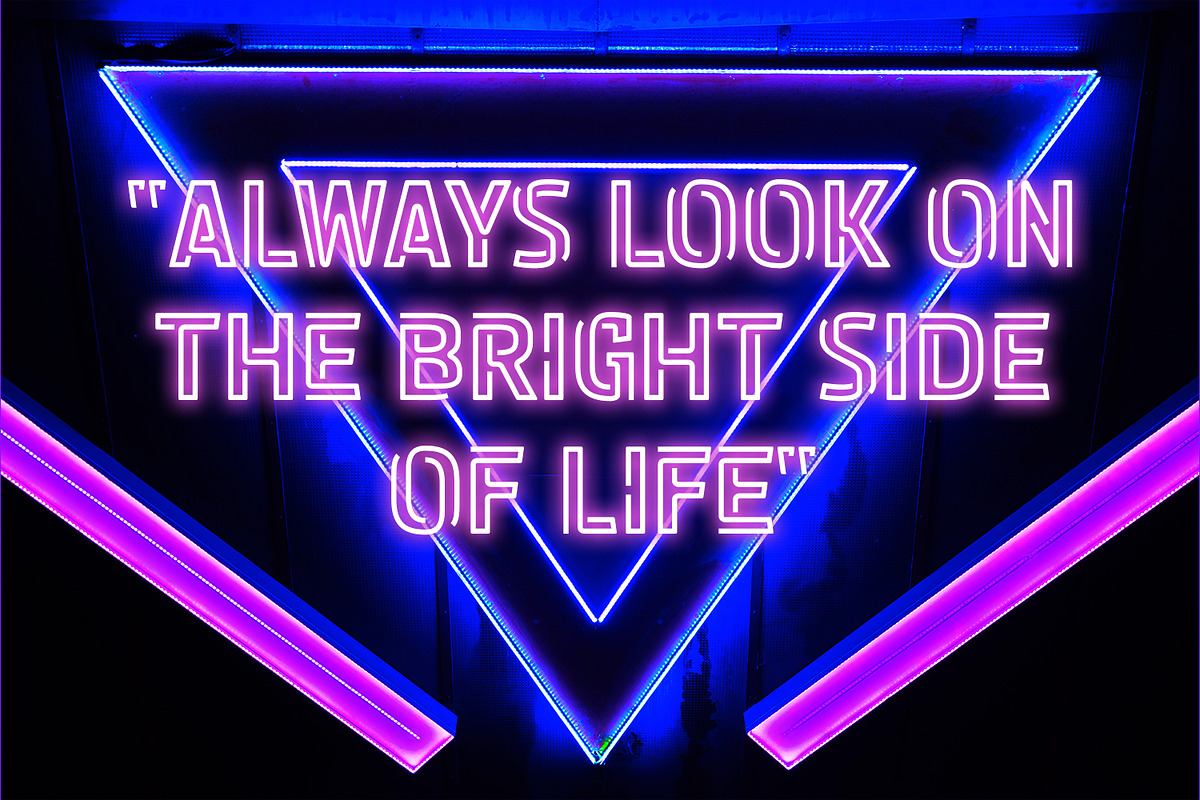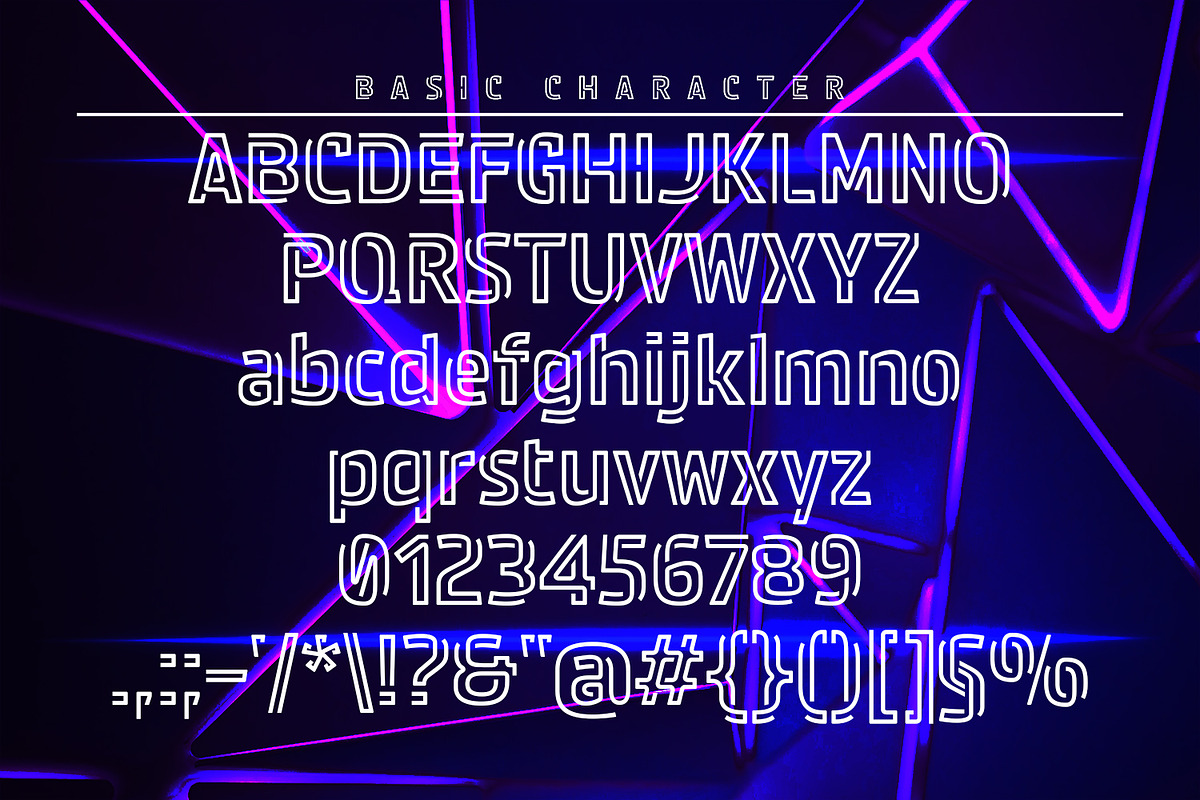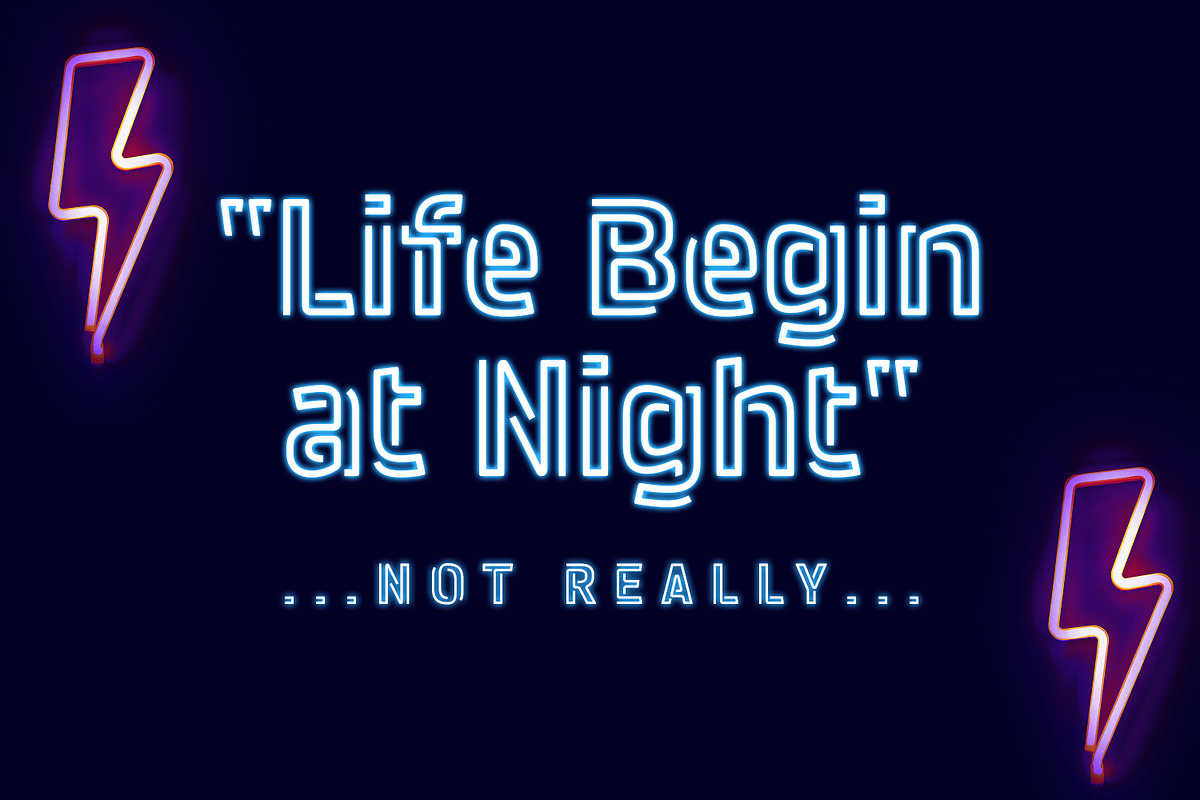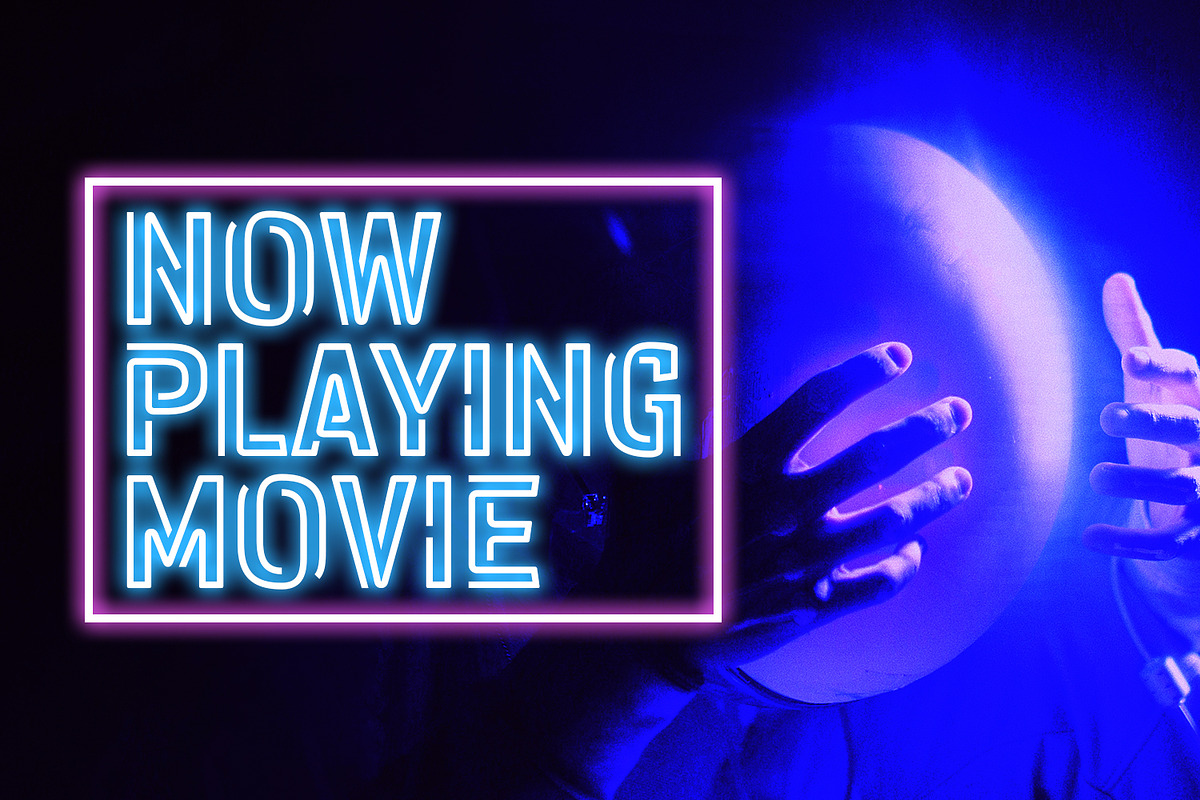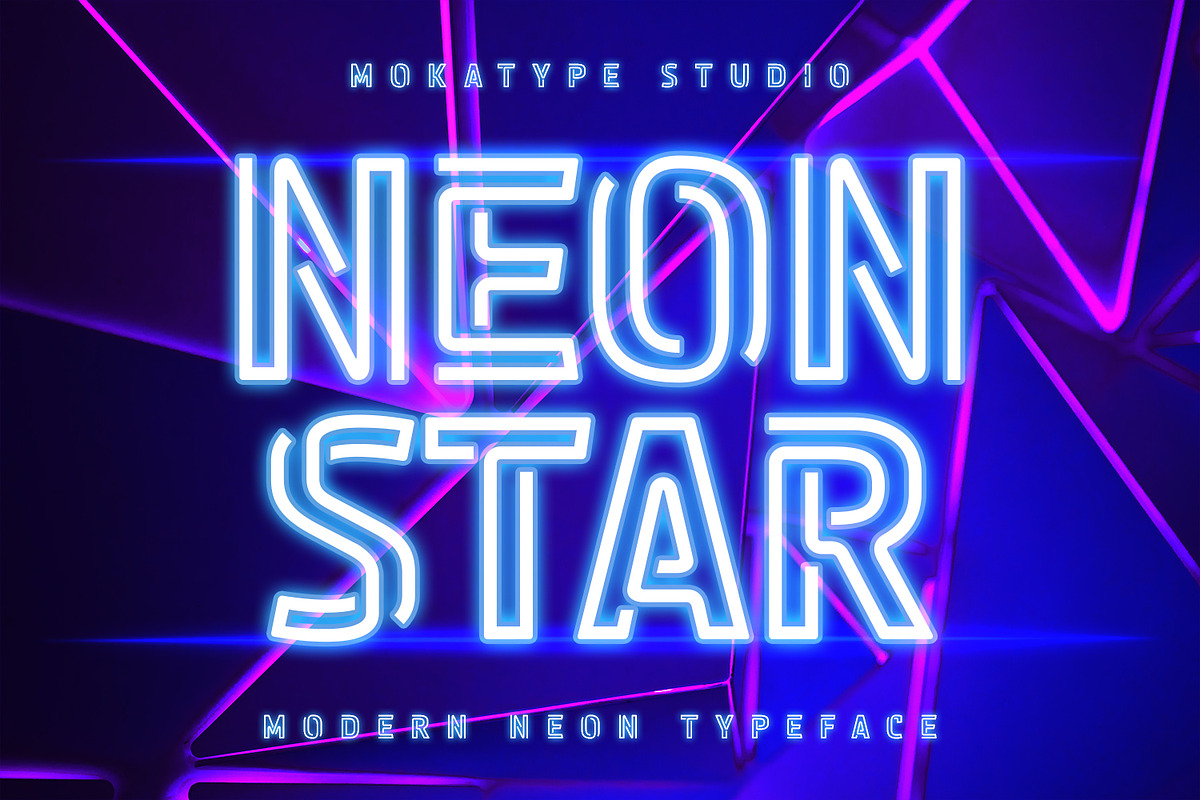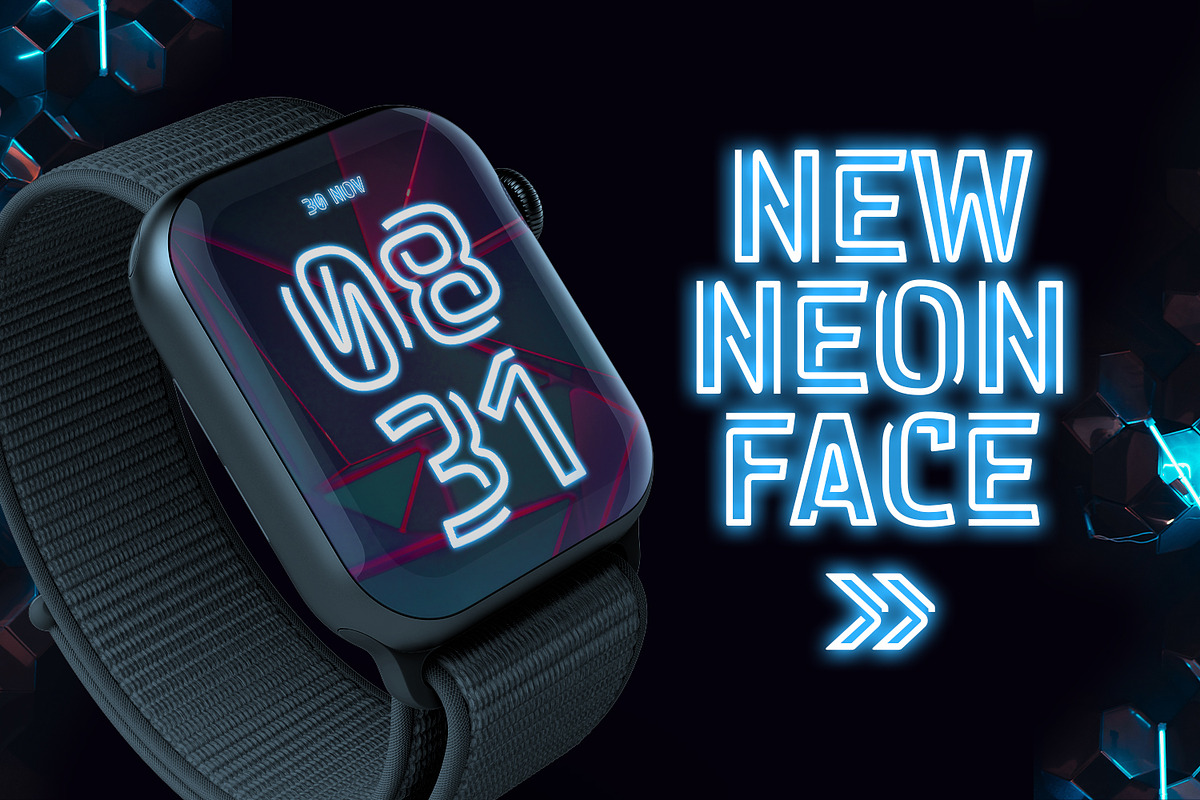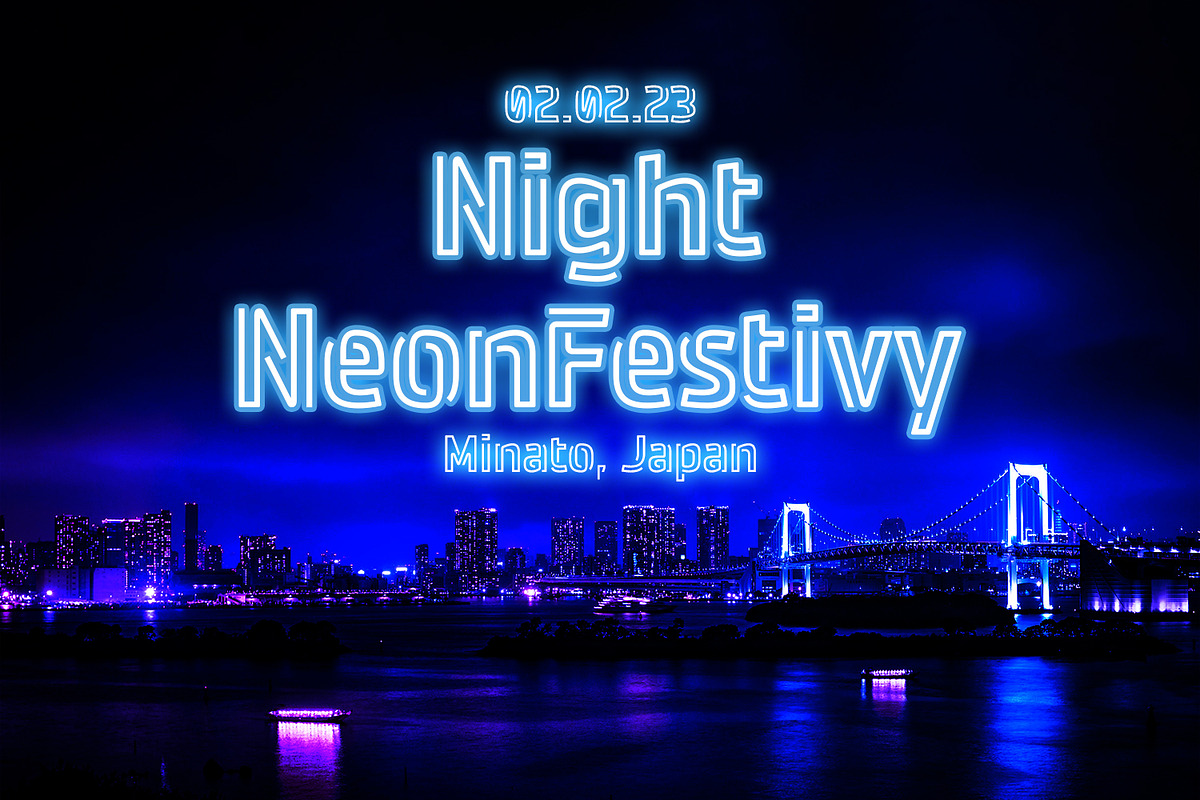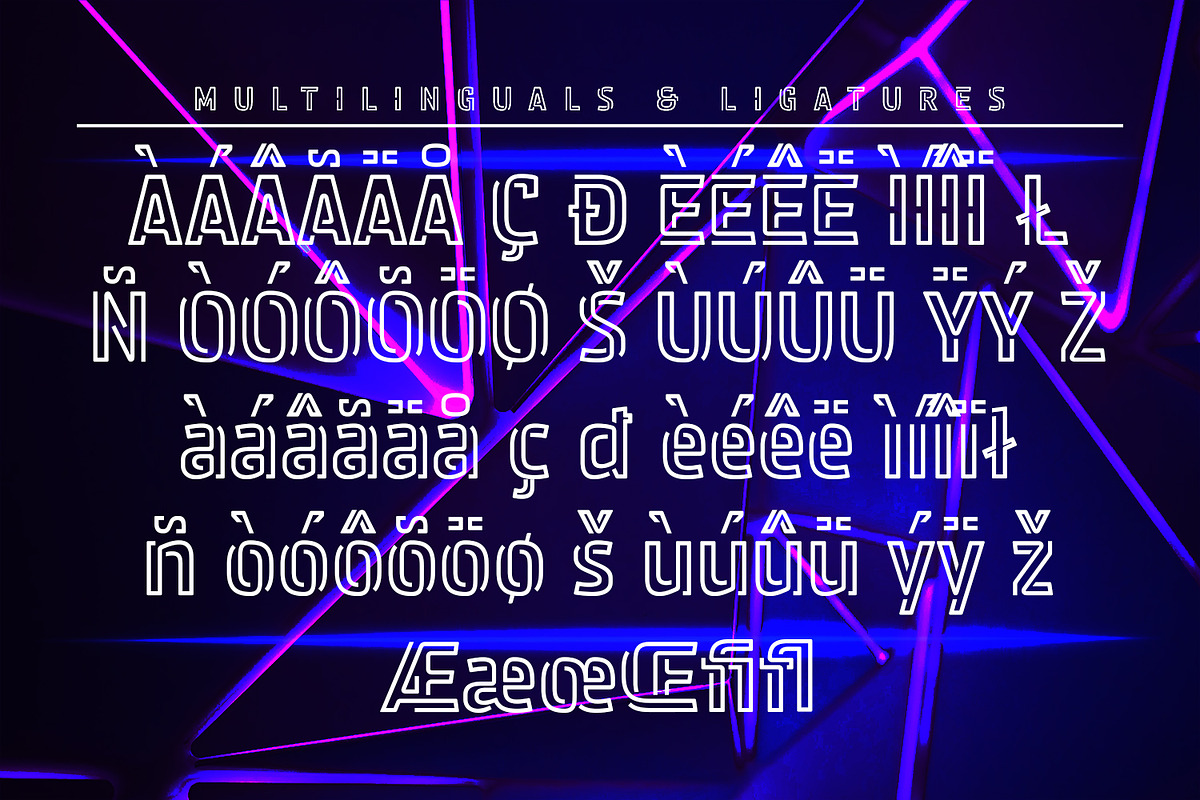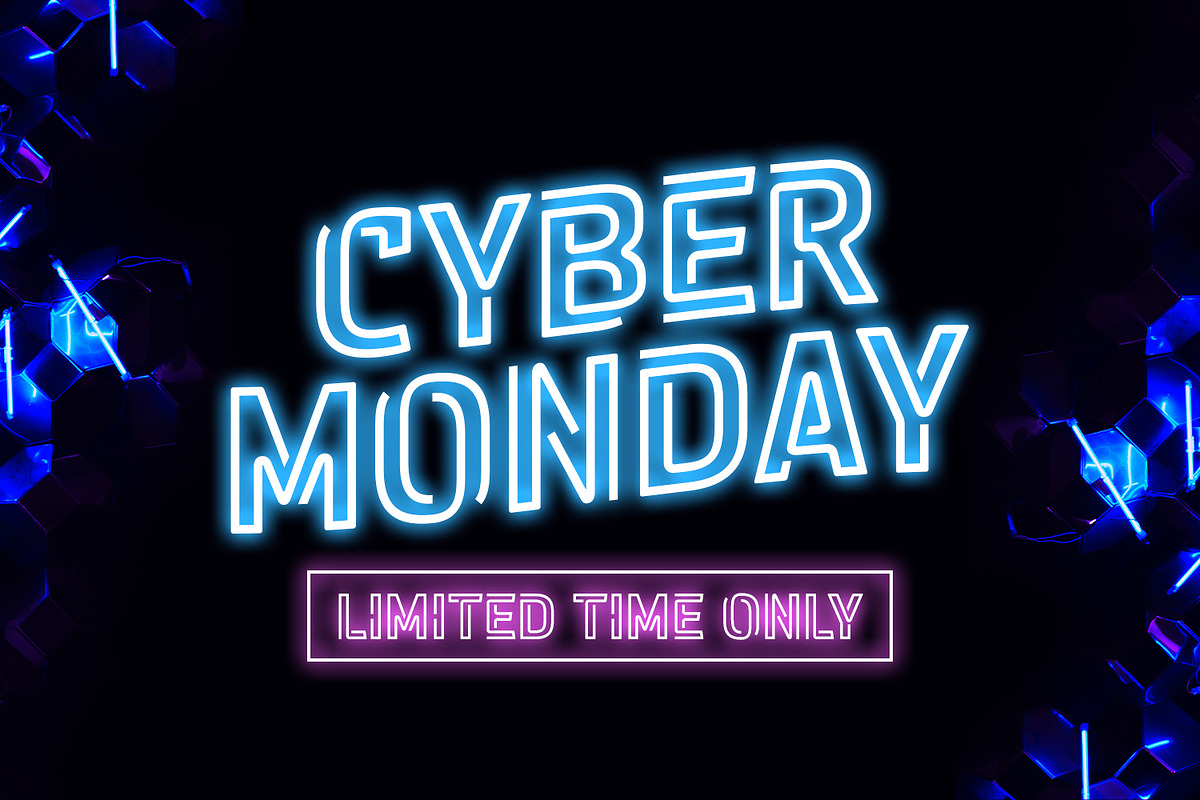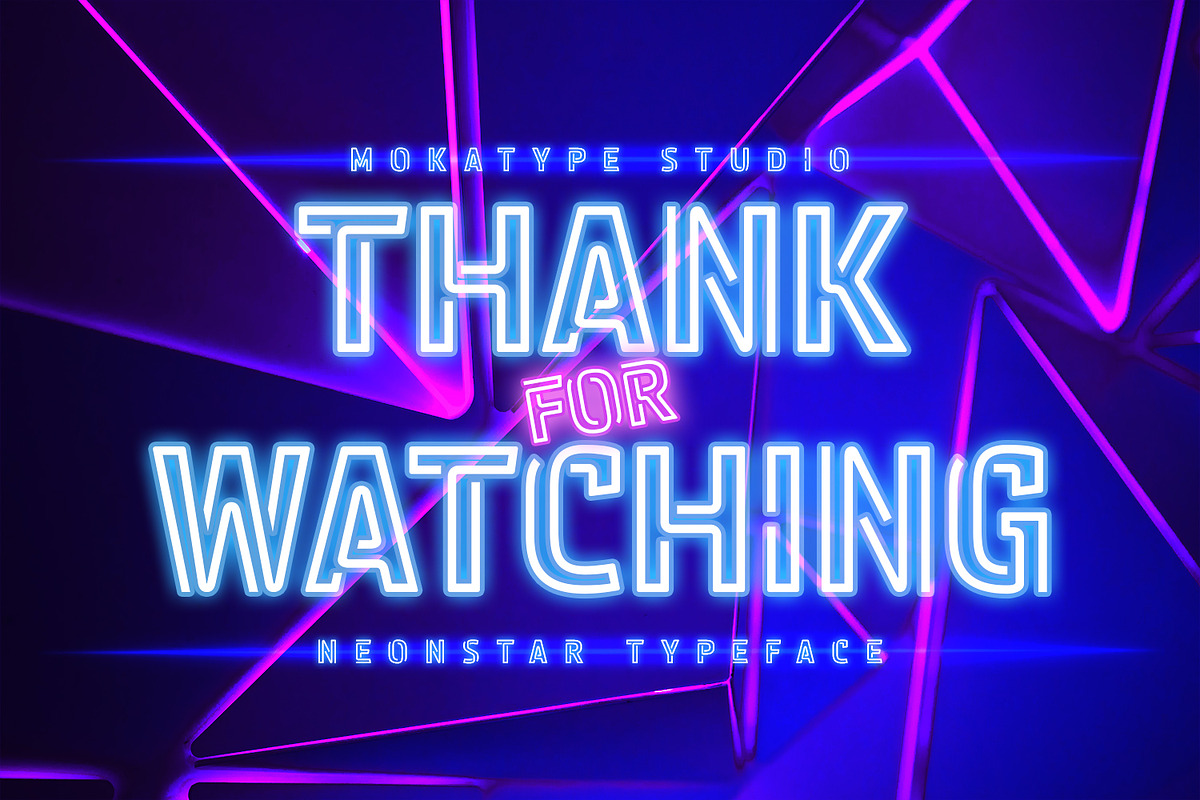
Neonstar - Night Light Display
Introducing the Neon Sci-fi Futuristic Font called Neonstat a unique font with a futuristic style that can make your futuristic logotype more interesting. Inspired by real-world neon light signs, this font is perfect for adding your own glowing light effects or can be used to actually design real-world neon signs. Neonstar font is suitable for your design and allows you to create beautiful designs, headlines, posters, logos, badges, and much more. It is also best used for posts, logos, posters, labels, and more.
- Ligatures (Opentype features)